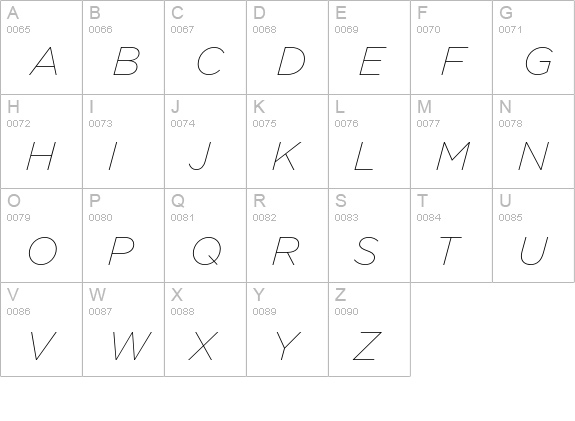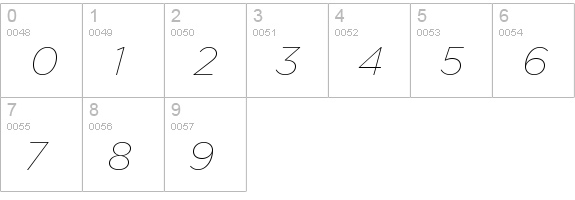
GothamThin Italic Font Details
GothamThin Italic is a distinctive, italic variant in the GothamThin typeface family \xE2\x80\x94 well suited to design and typography projects.
GothamThin Italic is a sleek and modern font that adds a touch of sophistication to any design. Its thin and elegant strokes convey a sense of refinement, making it perfect for projects that require a delicate and stylish touch. The italicized version of GothamThin font brings a sense of movement and fluidity to your text, adding a dynamic element to your designs. Best of all, GothamThin Italic is available for free download at FontsMarket.com. This versatile font can be used for a variety of purposes, from branding and advertising to editorial design and web graphics. Whether you're looking to create a professional and polished look or add a hint of flair to your projects, GothamThin Italic is the perfect choice. Download it now and elevate your designs with this beautiful and freely accessible font.